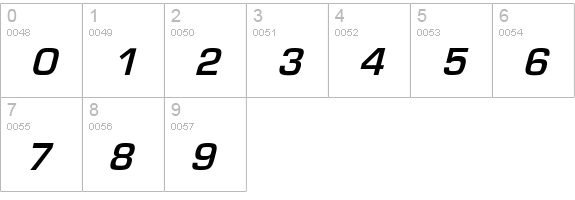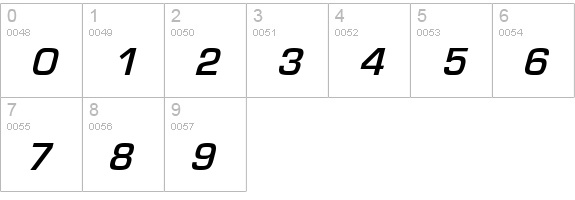
EurostileObl-Bold Font Details
EurostileObl-Bold is a strong, high-contrast variant in the EurostileObl typeface family \xE2\x80\x94 well suited to headlines, attention-grabbing titles, and strong calls-to-action.
EurostileObl-Bold is a modern and bold typeface that exudes strength and confidence. With its sharp angles and sleek design, this font is perfect for making a statement in any project. Whether you're designing a logo, poster, or website, EurostileObl-Bold will command attention and leave a lasting impression. The best part? EurostileObl-Bold is available for free download at FontsMarket.com. This means you can easily access this eye-catching font and incorporate it into your designs without any cost. Don't miss out on the opportunity to enhance your creations with the striking and impactful EurostileObl-Bold font. Download it today and elevate your design game!